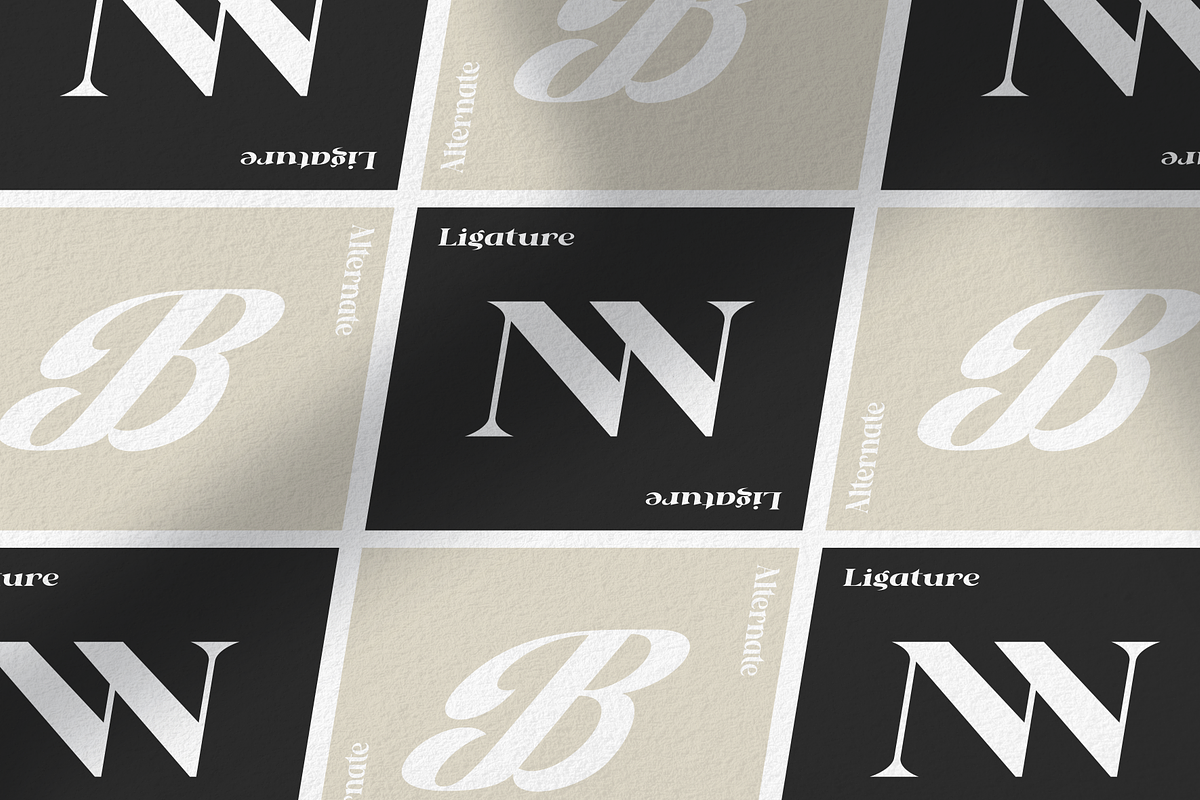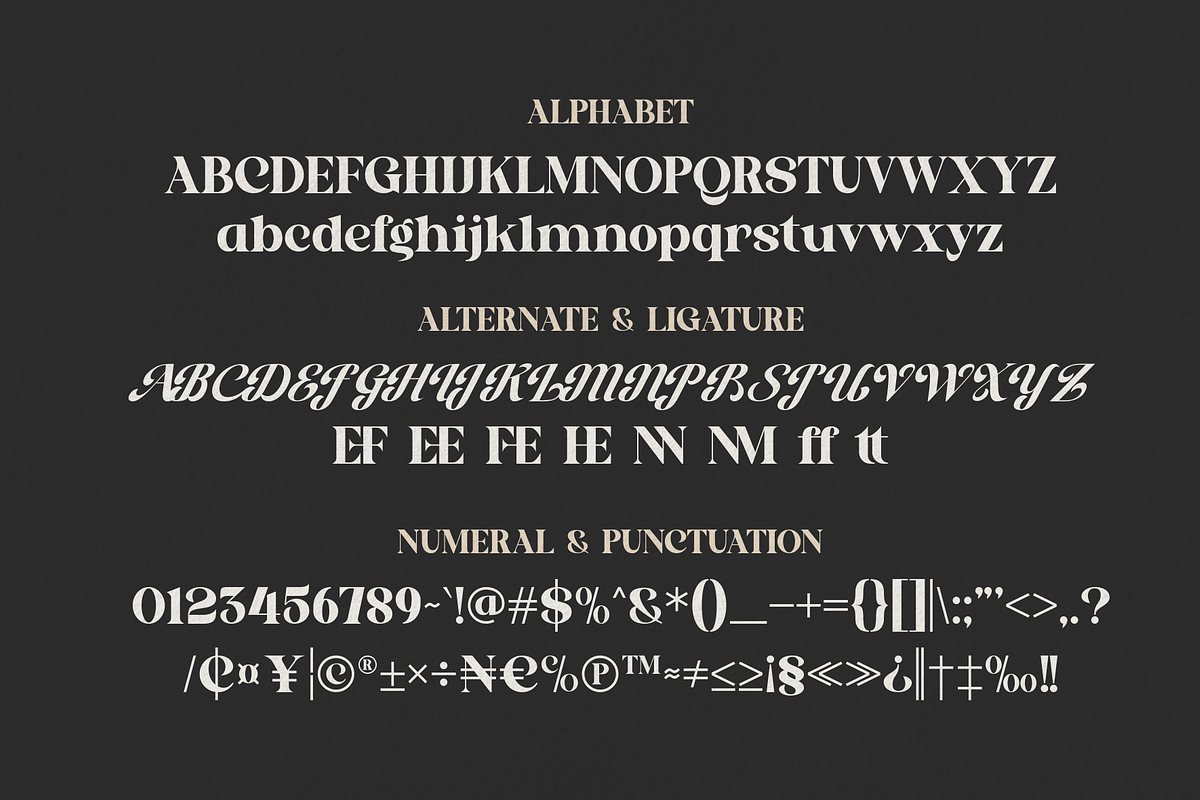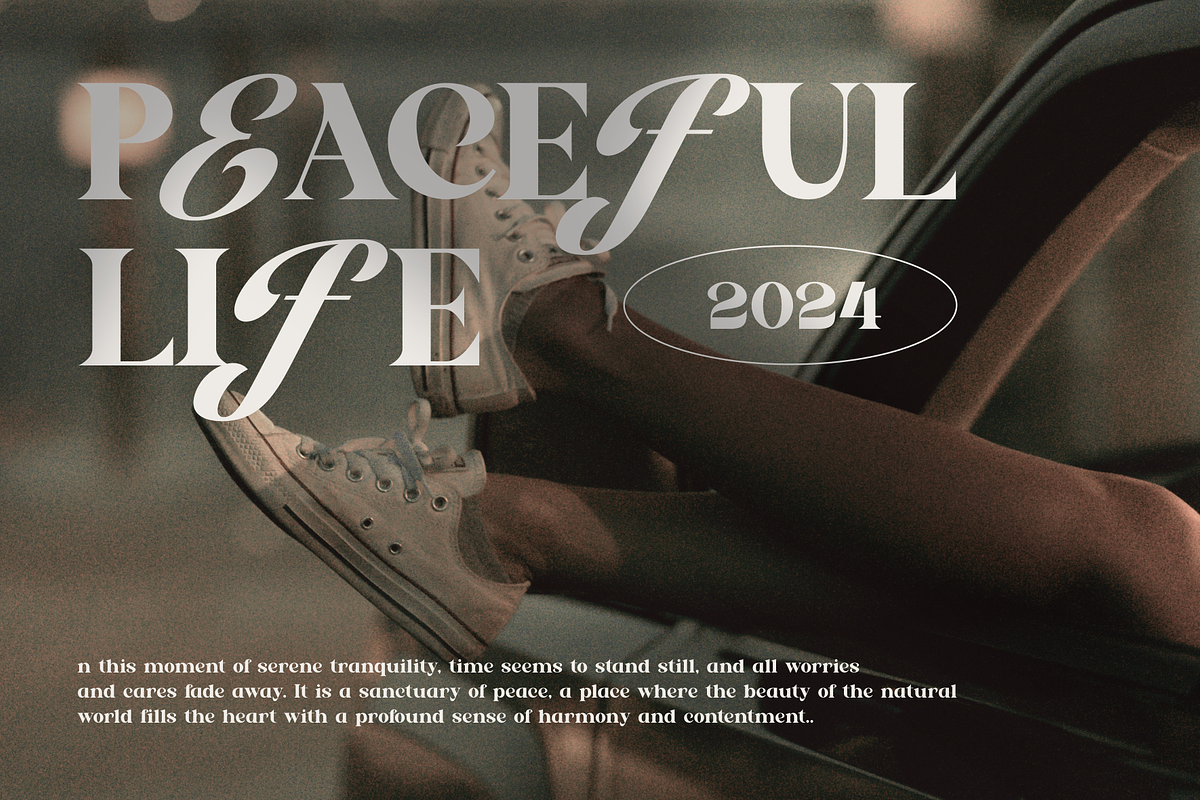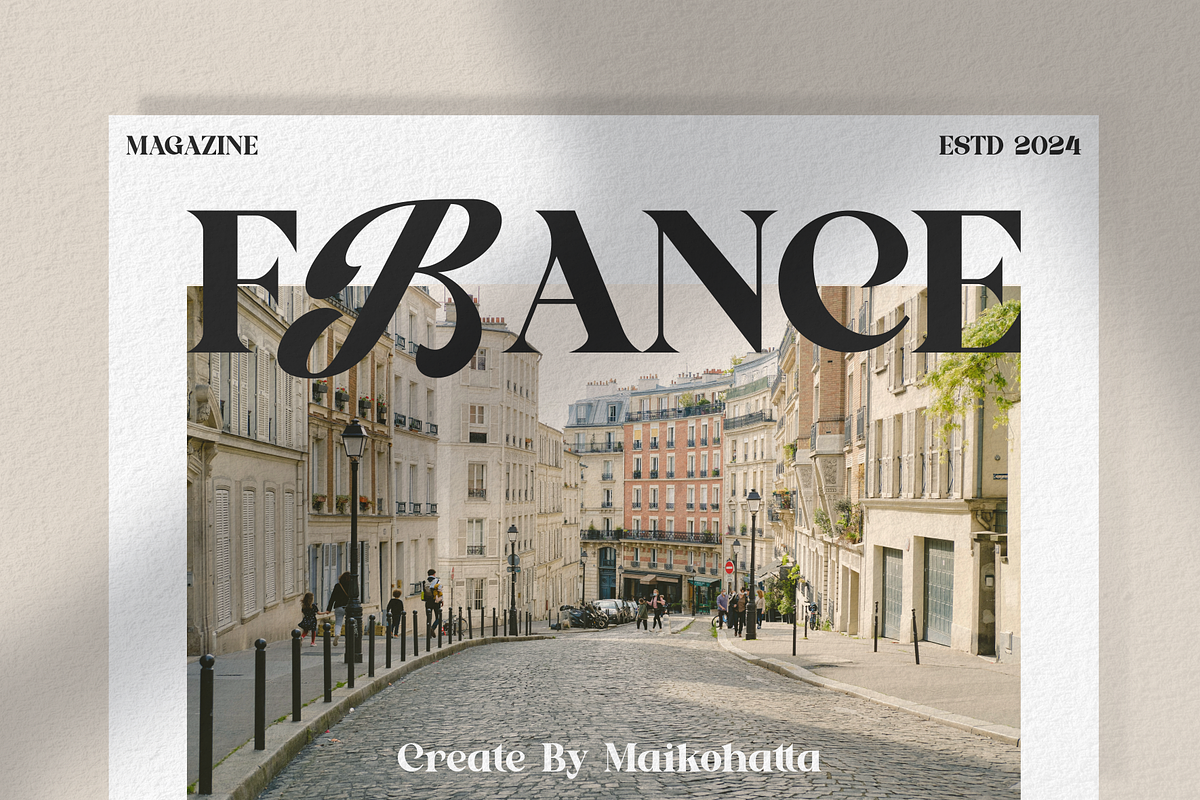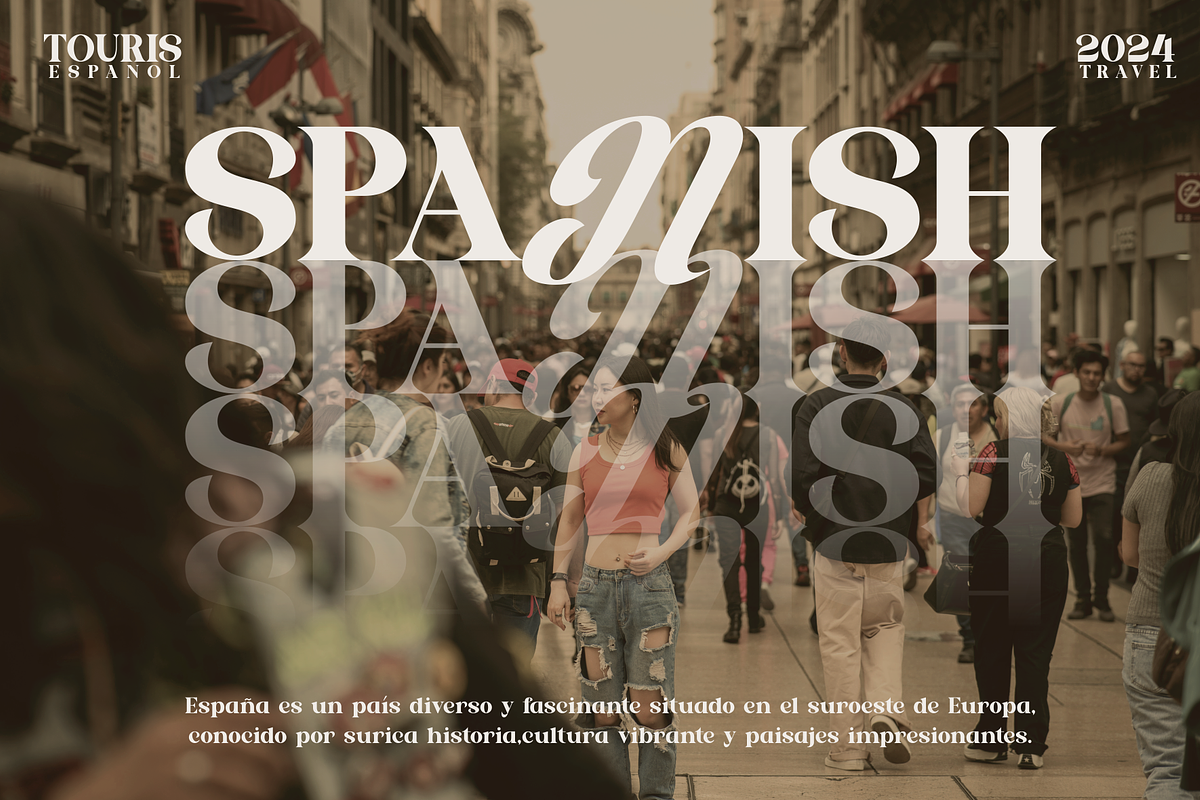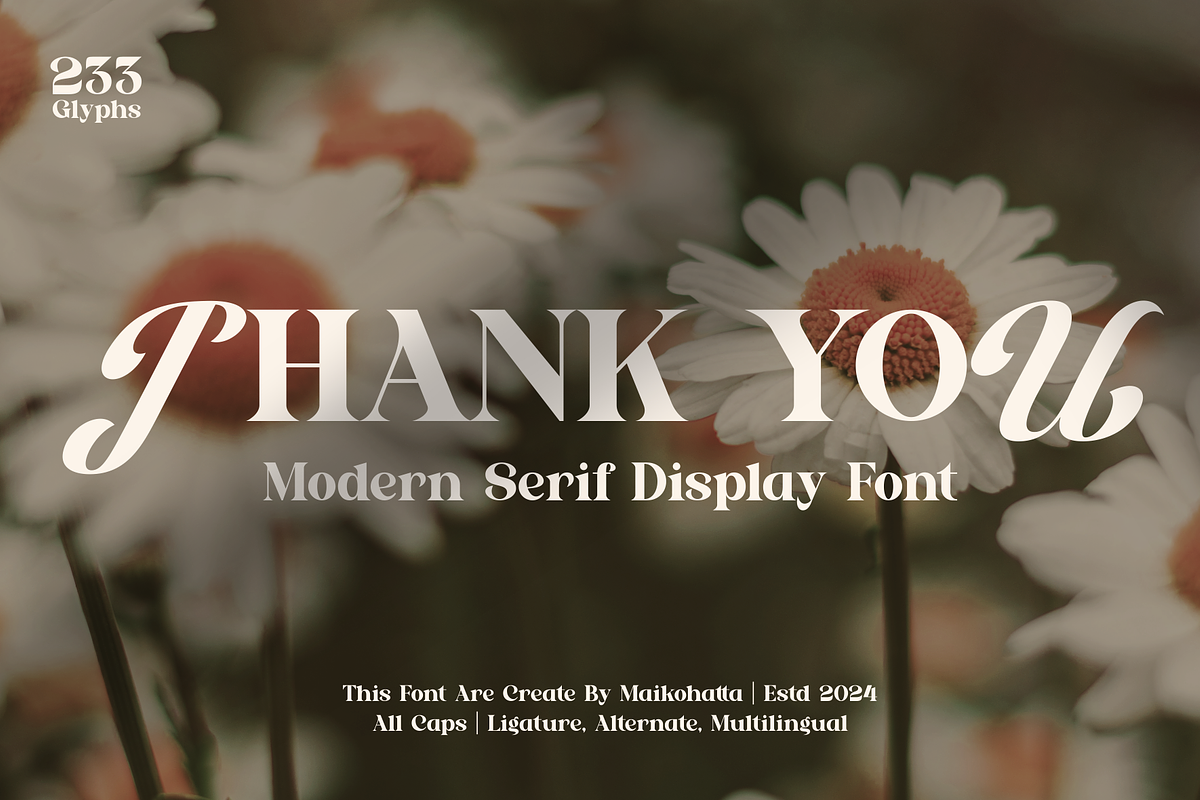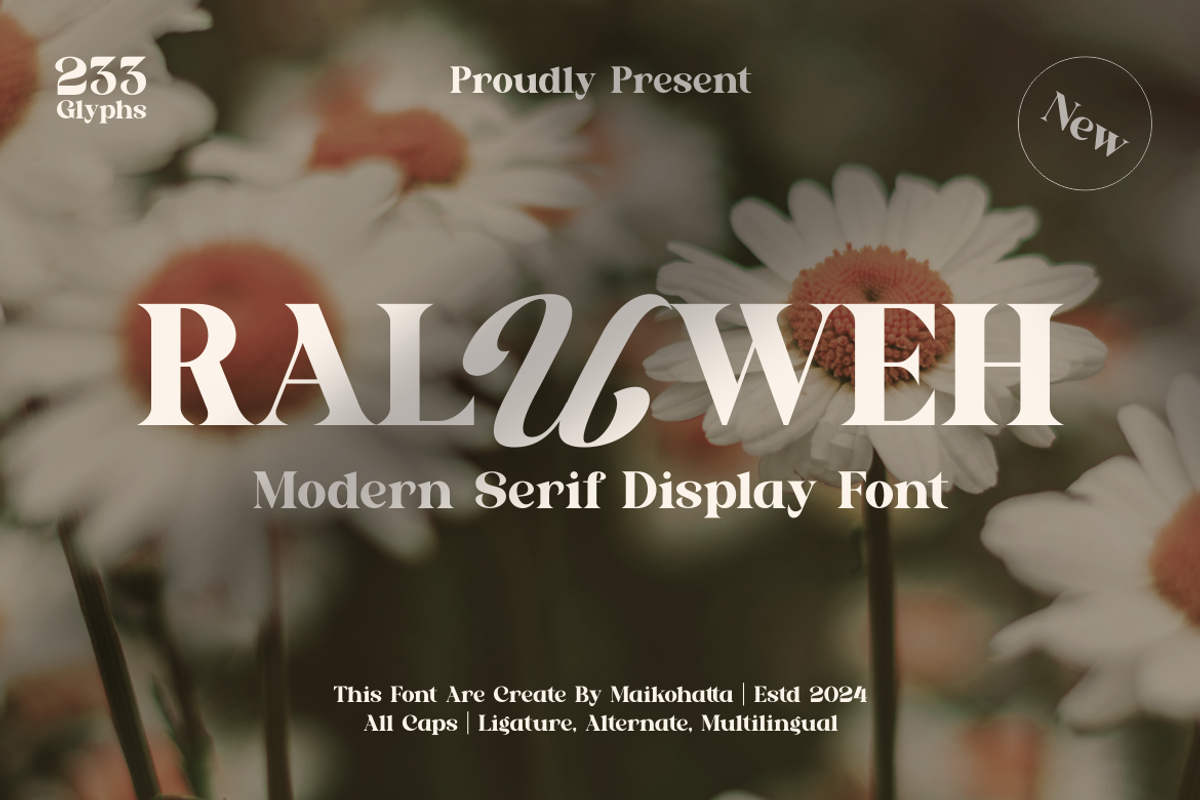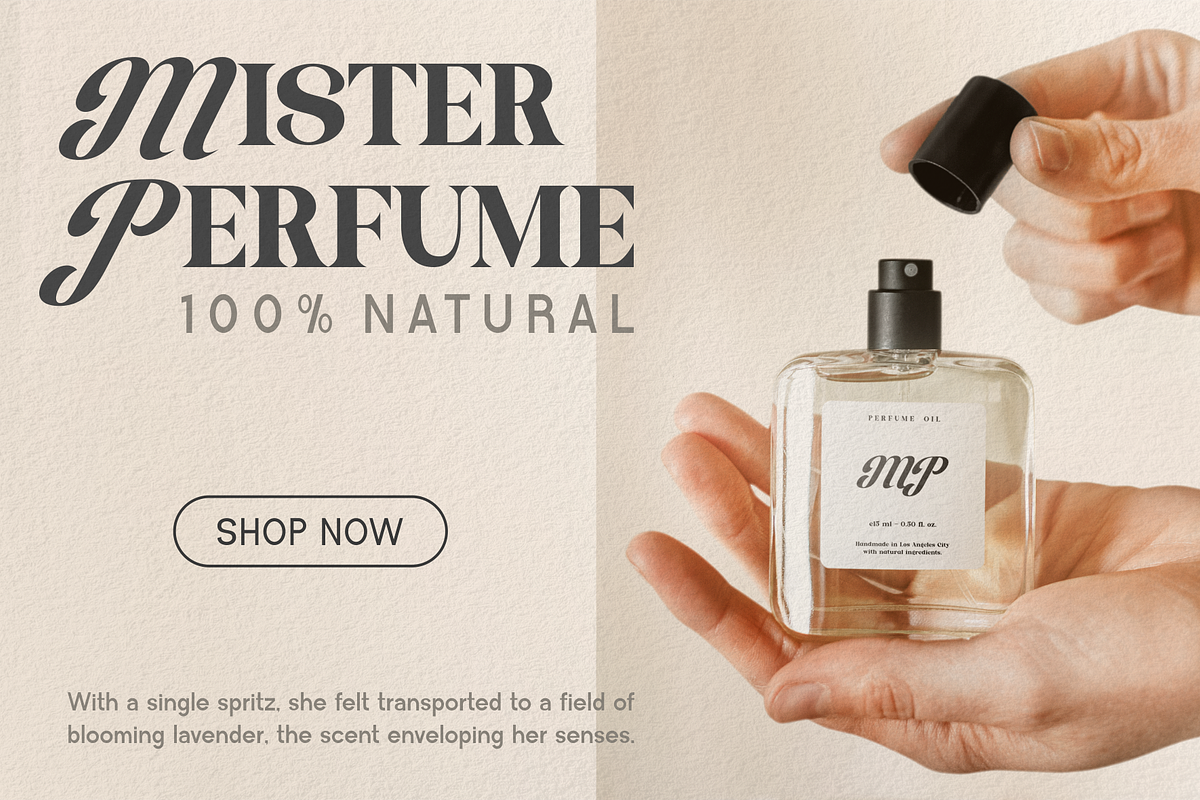
Raluweh - Modern Serif Display
Introducing our new product Raluweh - Modern Serif Display
This font features a balanced proportion of stroke thickness and fineness, creating attractive and easy-to-read visuals. This modern serif style is often characterized by a bold distinction between thick and thin lines, providing a touch that is understated but still stands out.